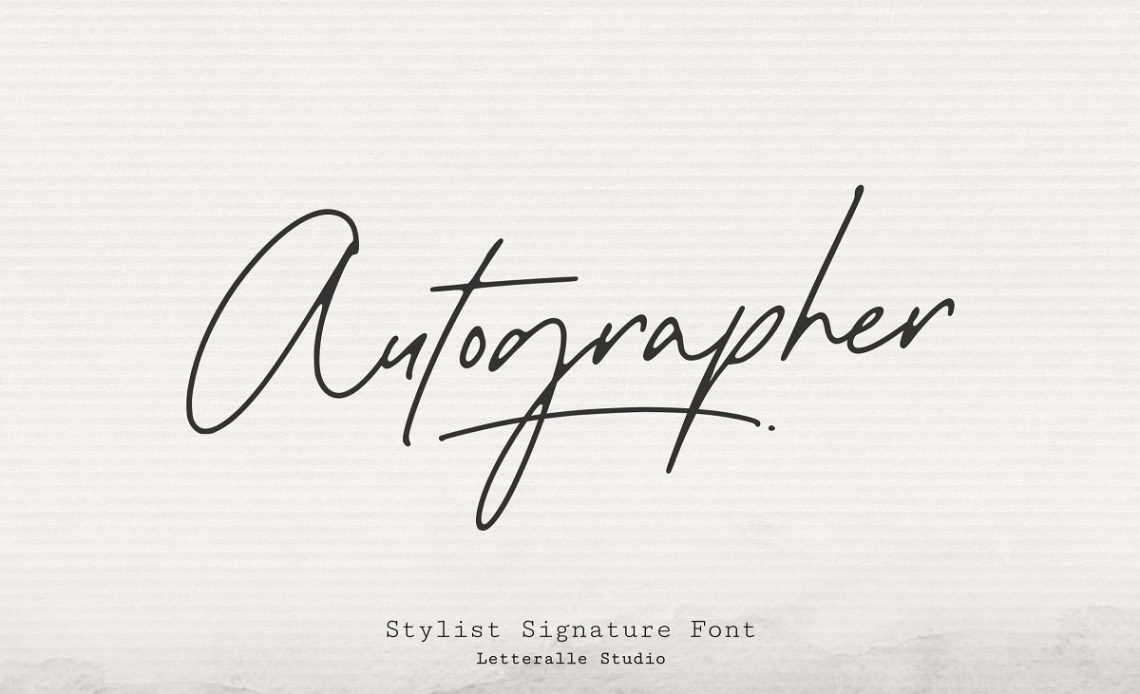
Introducing Autographer Handwritten Font - the perfect script font for creating stunning signature logos! Developed by Annas Alam, this font family is a must-have for anyone looking to add a touch of elegance and style to their design projects.
Autographer is not your average font; it is a font that exudes beauty and charm. With its unique, eye-catching design, Autographer is sure to captivate the attention of anyone who comes across it. It's a font that oozes sexiness, fashion, and chill vibes that are sure to elevate your design game to new heights.
One of the standout features of Autographer is its versatility. The font is perfect for a wide range of design needs, including merch, T-shirts, book covers, social media posts, websites, events, and more. With Autographer, you have the flexibility to create designs that are truly unique and captivating.
Autographer also comes with additional multilingual support, extra ligatures, and swashes to add even more personality to your designs. To access the swashes, all you need to do is type _1 until _5, and you're ready to go!
In conclusion, if you're looking for a font that is both elegant and stylish, Autographer is the perfect choice. It's a font that is sure to make a lasting impression on anyone who sees it, and it's perfect for all your signature logo needs. So why wait? Start using Autographer today and take your design projects to the next level!